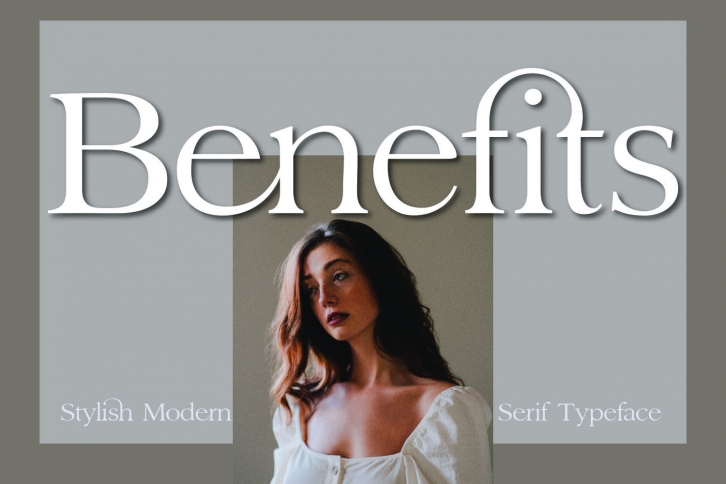
Benefits is a clean and stylish serif font. It is PUA encoded which means you can access all of the glyphs and swashes with ease! Add it confidently to your projects, and you will love the results.